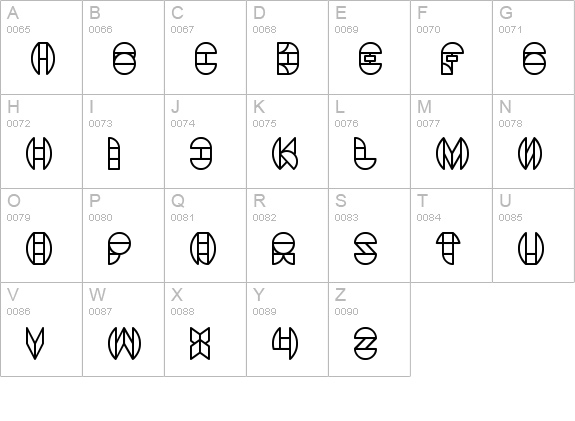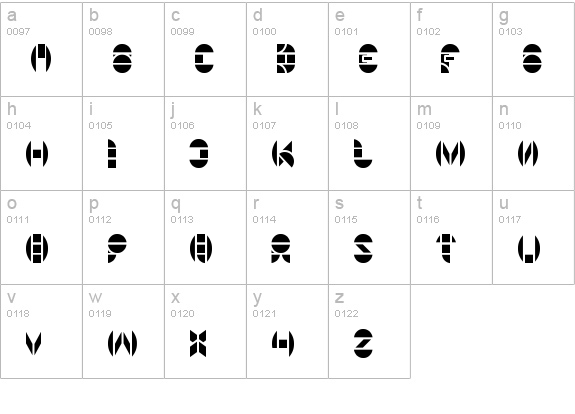
DRAGON FLY Font Details
Introducing the mesmerizing DRAGON FLY font, a true embodiment of elegance and creativity. This font effortlessly blends the artistic appeal of delicate curves and sharp edges, resulting in a truly captivating typeface that will leave a lasting impression on any design project. DRAGON FLY is a versatile font that exudes confidence and sophistication. Its sleek and modern design makes it suitable for a wide range of applications, from branding and logo design to editorial layouts and social media graphics. Whether you're working on a professional project or simply want to add a touch of refined style to your personal creations, this font will undoubtedly elevate your designs to new heights. One of the most remarkable aspects of DRAGON FLY is that it is absolutely free. Yes, you heard it right! This incredible font is freely available to download at FontsMarket.com. We believe that creativity should be accessible to everyone, and by offering this font for free, we aim to empower designers and enthusiasts all around the world to explore their artistic potential without any constraints. With its extensive character set, DRAGON FLY offers a wide range of glyphs and alternates, allowing you to experiment and customize your designs with ease. Whether you prefer a bold and impactful look or a more delicate and intricate feel, this font has got you covered. The carefully crafted letterforms ensure legibility and readability, making DRAGON FLY a perfect choice for both print and digital media. Don't miss out on the opportunity to bring a touch of magic and elegance to your designs. Download the remarkable DRAGON FLY font for free at FontsMarket.com and let your creativity soar to new heights. Unleash the power of this extraordinary font and watch as your designs come to life with a captivating allure that is bound to leave a lasting impression.